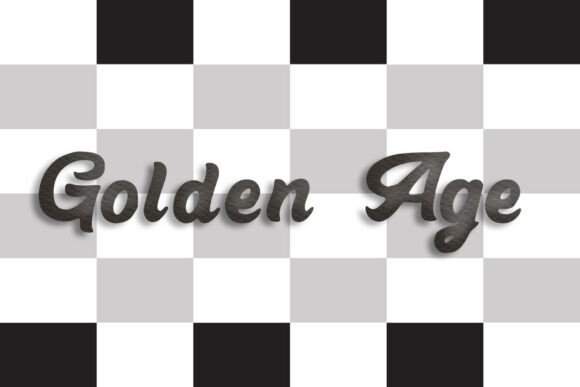
Introduction to Golden Age Font
As a designer, have you ever stumbled upon an old vintage poster or a retro advertisement and felt a sudden surge of creativity? The nostalgic charm of a bygone era can be a powerful design inspiration, and the Golden Age Font is here to bring that magic to your creative projects.
With its elegant, cursive script and classic feel, the Golden Age Font is the perfect design resource for adding a touch of nostalgia to your work. Whether you’re working on a t-shirt design, a sticker, or a magazine layout, this high-quality font is sure to elevate your creative project and transport your audience to a different era.
Key Features of Golden Age Font
- High-quality, elegant design perfect for creative projects and design resources.
- Features a unique, vintage-inspired aesthetic that evokes the feeling of a bygone era.
Honest Review: Golden Age Font
I recently stumbled upon the Golden Age Font, a high-quality design resource that caught my attention. As a designer, I’m always on the lookout for new and interesting fonts to enhance my creative projects.
What works well with the Golden Age Font is its elegant and sophisticated aesthetic. The font features a beautiful, handwritten style that adds a touch of luxury to any design. ✨ I particularly appreciate the transparent background, which makes it easy to use in a variety of design contexts.
- ⚠️ The font may not be suitable for all design projects, particularly those that require a more modern or bold aesthetic.
- ⚠️ The font is a bit on the larger side, which may make it difficult to use in smaller design contexts.
Overall, I’m impressed with the Golden Age Font. It’s a high-quality design resource that can add a touch of elegance to any creative project. However, designers should be aware of its limitations and use it judiciously.
Getting the Most Out of Golden Age Font
To get the most out of the Golden Age Font, use it on a transparent background to create a high-quality design. This font is perfect for creative projects that require a touch of elegance and sophistication. With its high-quality design and free download, the Golden Age Font is a valuable resource for designers and creatives.
The Golden Age Font is commonly used in:
- Artistic and creative projects